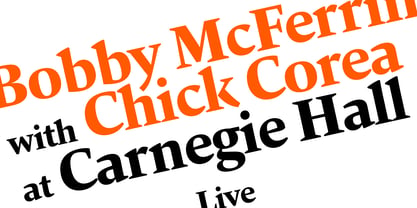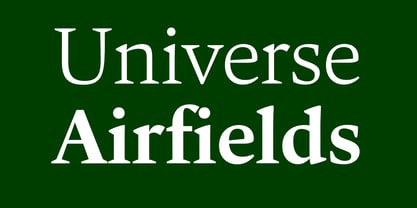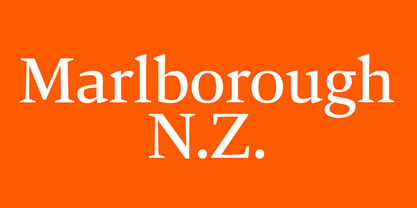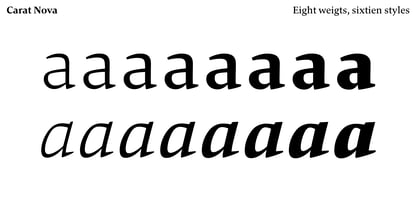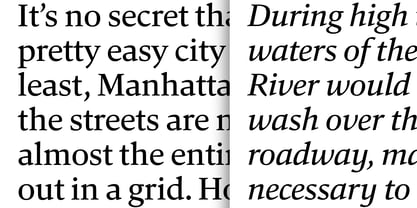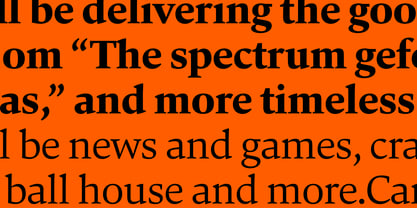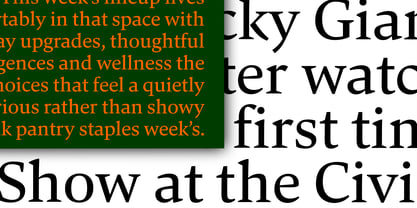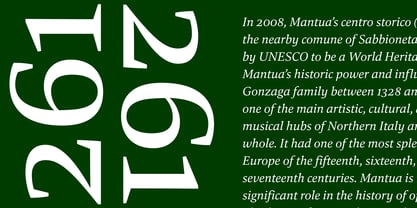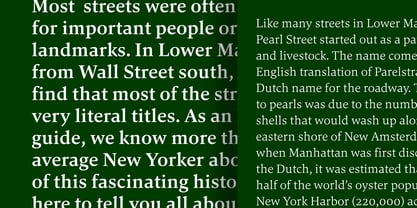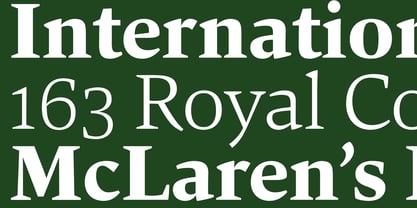
Carat Nova
Carat Nova is the latest iteration of the renowned Carat family, presenting anew the classical Antiqua category, infused with a contemporary twist. This font family boasts an extensive range of styles, making it versatile for various applications. With its unique graphic appeal, Carat Nova is perfect for large-format projects, impactful headlines, magazines, book covers, newspapers, and branding logos. Its diverse weights and OpenType features enhance its usability across both digital and print media, ensuring it meets the demands of modern design.
German designer Dieter Hofrichter started his foundry in 2010. Since then, he has remained focused on developing text fonts that integrate the rich history and tradition of typography with contemporary styles. Based in Munich, his first typeface on MyFonts was Impara, a sans serif with lively stroke ductus and distinct humanistic characteristics that is a representation of linear coolness and classic elegance. Since his debut, he has continued to produce beautiful, high quality serif faces. Capita, one of the foundry’s best sellers, is a self-dominated face with a fresh style that avoids the harshness of many slab serifs. Dieter has also seen success with one of his most recent designs, Mangan, a text face that combines classical rationality with contemporary design. “One of our intentions is to utilize the knowledge of the history of type to create contemporary types,” Dieter says. “Style consciousness and many years of experience in type design are our qualifications for producing functional and usable types of high quality.”